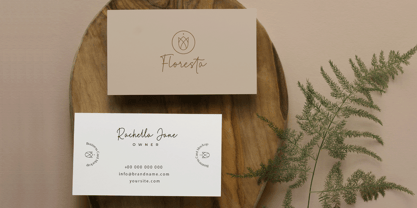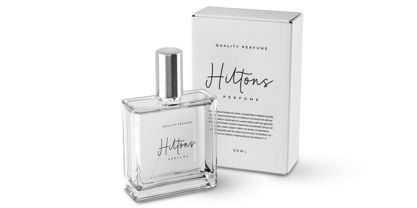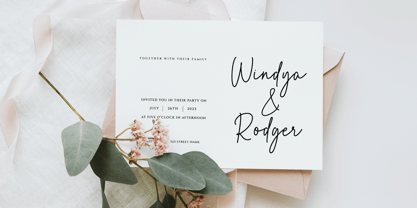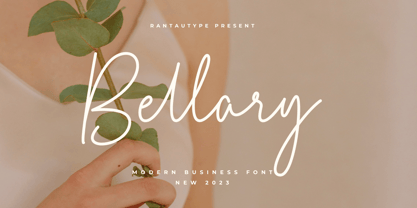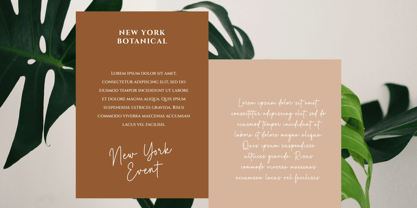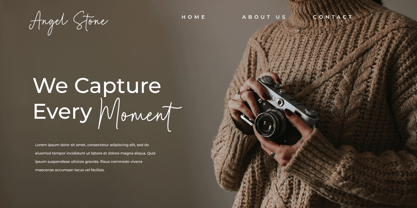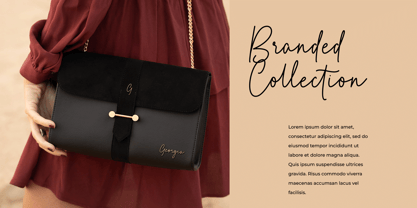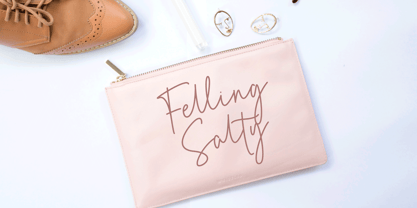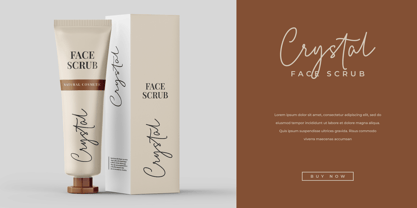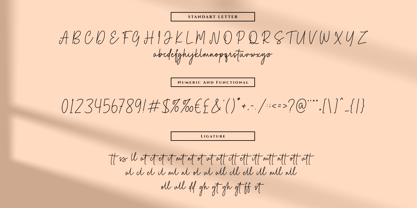
Bellary
by RantauType
The Bellary Font Family was designed by Yudi Pratama Chandra and published by RantauType. Bellary contains 1 styles.
Bellary is modern business font which can be interpreted professional with stylish and natural curve. We keep this font looks modern, minimalist, elegant, readable, stylish, catchy and easy to use. Bellary come with ligature and multilingual support.
Bellary is a beautiful choice for any creative endeavor, chic, lifestyle design such as logos, title, watermark on photography, cover, branding, display and magazine, wedding event, quotes, album cover, business card, corporate, business project and many other design project. Bellary here to make your work to high level!!!
Features:
• Standar character A-Z and a-z
• Numberial and Functional
• Ligature